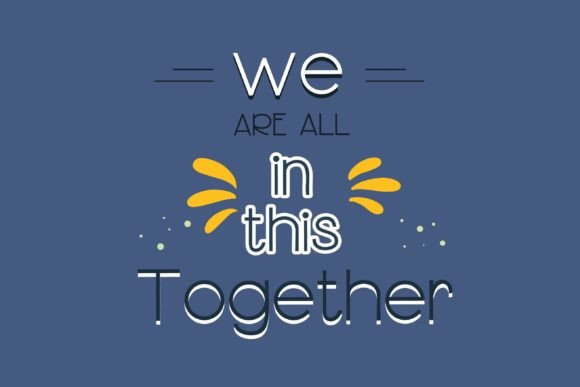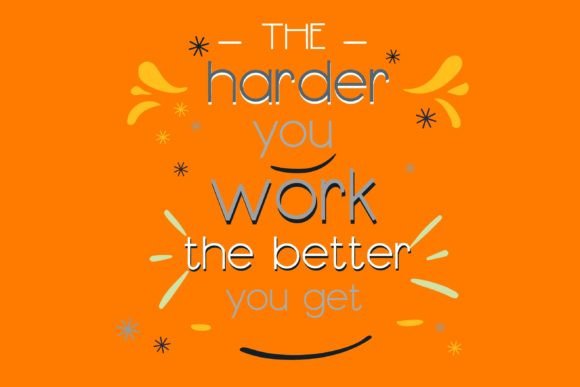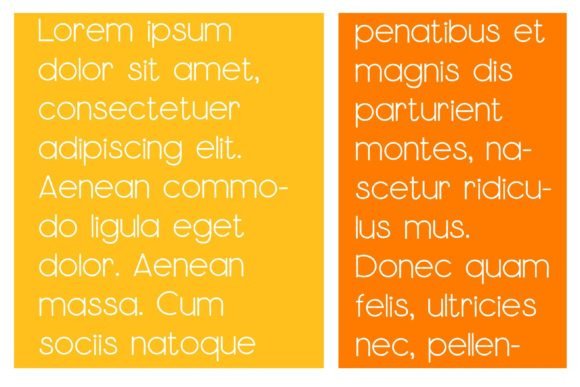
Introduction to Honey Ant Font
As a designer, there’s nothing quite like the thrill of discovering a new font that sparks inspiration for a creative project. For me, it was the moment I stumbled upon the Honey Ant Font – a hand-crafted, sans serif masterpiece that adds a touch of elegance to any design. With its bold and lite versions, this versatile font is perfect for designers looking to add a personal touch to their work.
Whether you’re working on a branding project, designing a wedding invitation, or crafting a greeting card, the Honey Ant Font is an excellent choice. Its unique combination of alt lettering and hand-crafted flourishes gives it a one-of-a-kind charm that’s sure to elevate your design. And the best part? This high-quality font is available for free download, making it a valuable resource for designers of all levels.
What sets the Honey Ant Font apart is its ability to add a sense of warmth and personality to any design. With a transparent background, this font is perfect for layering and combining with other design elements. Whether you’re working on a digital or print project, the Honey Ant Font is a design resource that’s sure to become a trusted companion in your creative journey.
Key Features of Honey Ant Font
- High-quality design resource for creative projects, offering a unique and stylish aesthetic.
- Comes with a transparent background, allowing for seamless integration with various design elements.
- Features a resolution of 300 DPI, making it suitable for use in high-resolution designs and prints.
- The Honey Ant Font is available in a range of sizes, from 12 to 72 points, providing flexibility for various design applications.
- Perfect for use in branding, logos, packaging, and other creative projects where a distinctive and eye-catching font is required.
Honest Review: Honey Ant Font
I recently had the chance to work with the Honey Ant Font and I must say, it’s been a pleasant experience. This free download font has quickly become a valuable resource for my design projects.
- High-quality design: The font is clean, modern, and visually appealing.
- Transparency: The font offers a transparent background option, making it easy to integrate with various design elements.
- Creativity: Honey Ant Font provides a unique and creative feel that’s perfect for innovative projects.
- Limited font styles: The font collection is relatively small compared to other design resources.
Tips for Getting the Most Out of Honey Ant Font
For best results, use Honey Ant Font in combination with other high-quality design elements. Experiment with different font sizes, colors, and effects to achieve the desired look. You can also use the font in combination with transparent backgrounds to create a seamless design.
Honey Ant Font is a versatile design resource that can be used in a variety of creative projects, including logos, graphics, presentations, reports, and documents. Its transparent background makes it easy to use in combination with other design elements, making it a valuable resource for designers and non-designers alike.